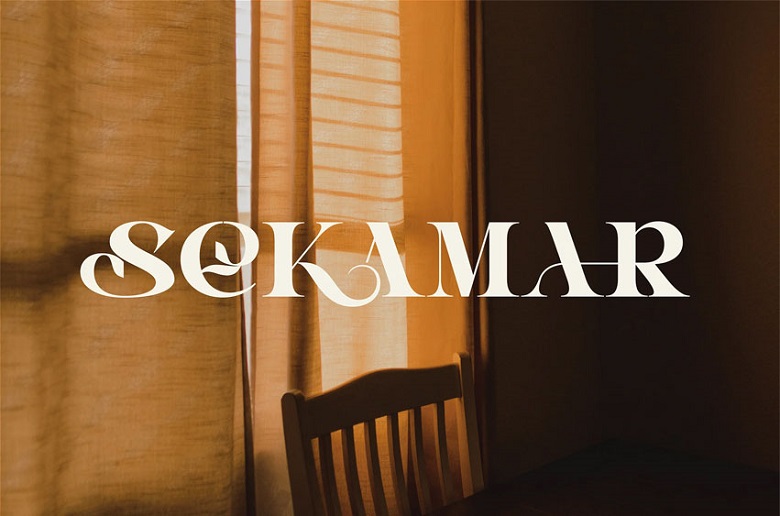
Sekamar Font
Sekamar is a new serif typeface that unites traditions and innovations in font design. Sekamar has clean lines and a high contrast, with ornaments and dots of different shapes along the strokes; ligatures, and a large number of alternate characters and gives refinement and elegance to any project.
Perfect for logo, branding, magazine, book and more, this typeface comes with wide Latin character set including punctuations, numbers and other symbols, hence perfectly suitable by design, for both web and print purposes. Bring the sophistication of Sekamar in to any of your designs.
Sekamar Serif Font